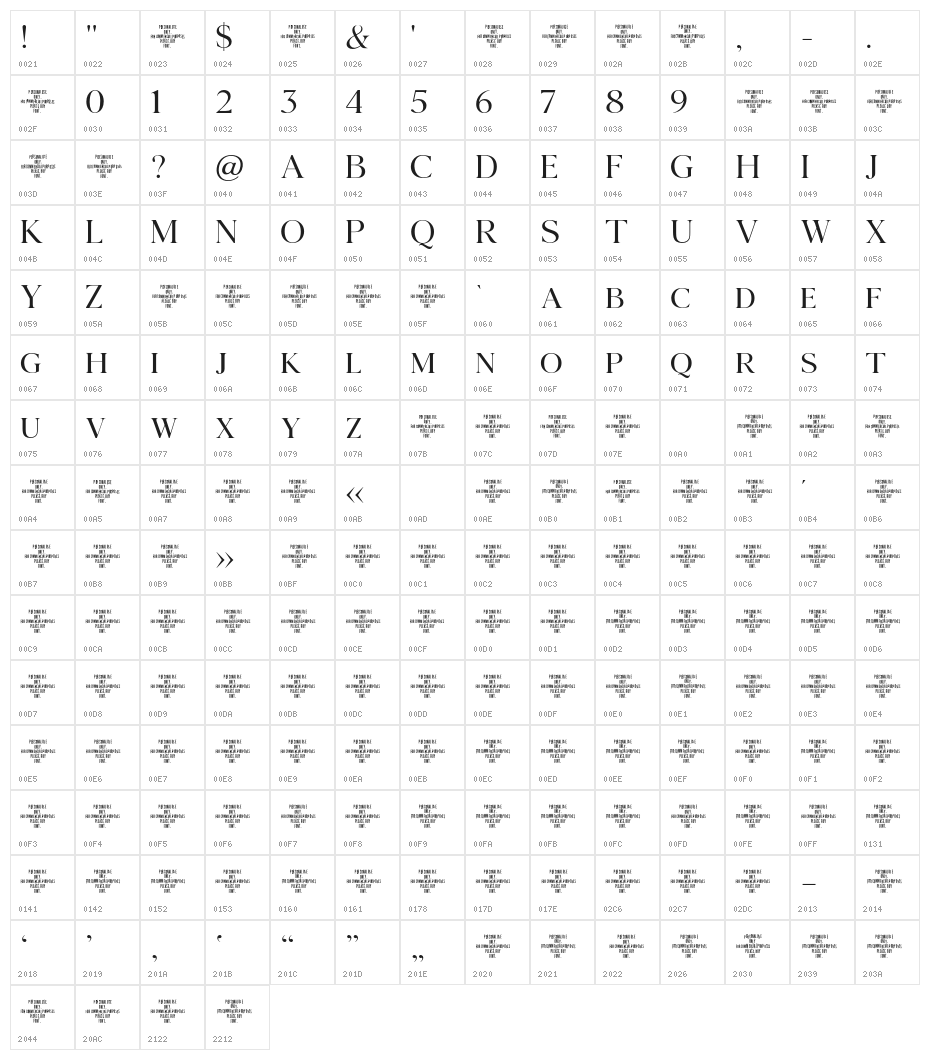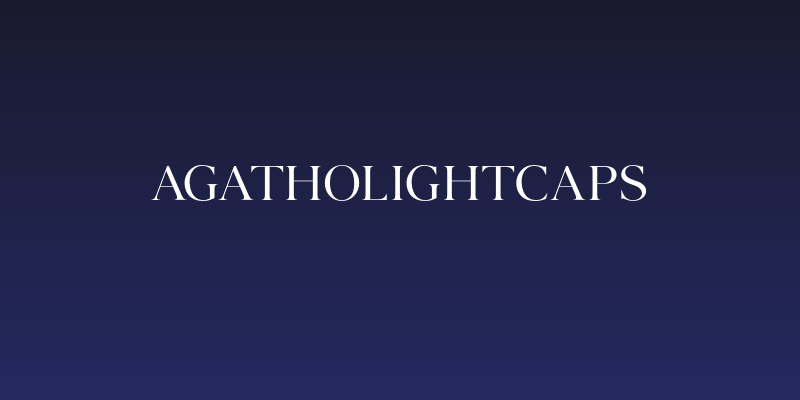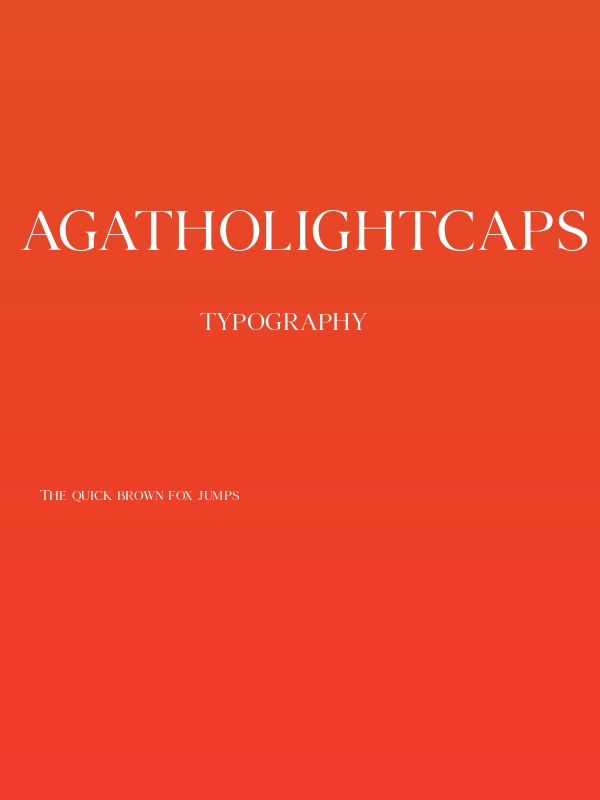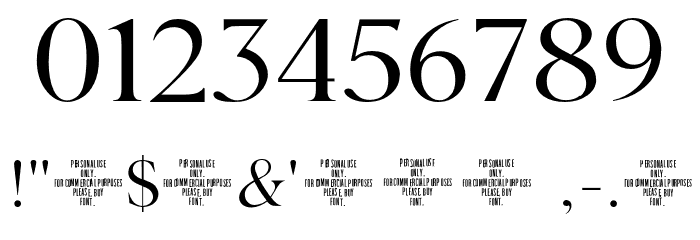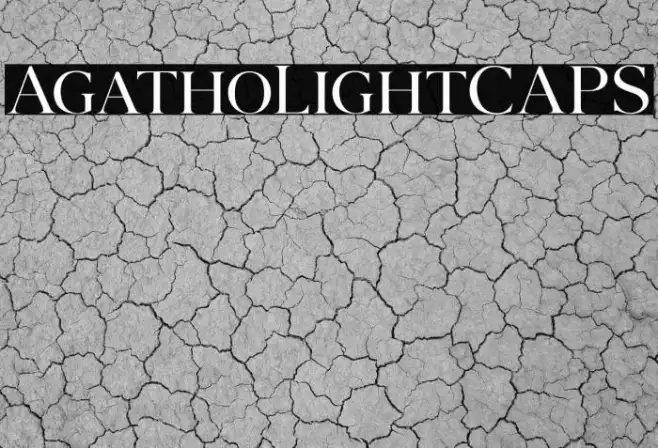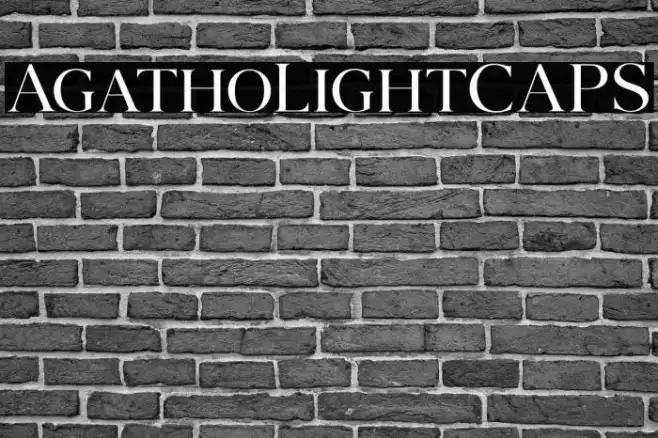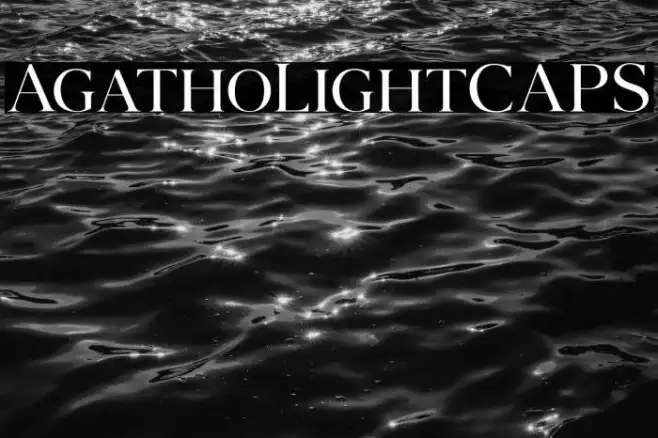
AgathoLightCAPS Font
AgathoLightCAPS Description
This font features a classic serif style with elegant and refined letterforms. The uppercase letters are prominently displayed, showcasing a traditional design with a modern twist. The numerals are clear and distinct, maintaining the font's sophisticated appearance. Special characters are included, adding versatility to the font's usage. The overall design is balanced, with a focus on readability and aesthetic appeal. The strokes are consistent, and the serifs are well-defined, contributing to the font's timeless elegance.
| Proposed Projects | Ideal for formal invitations, editorial design, branding, and classic-themed projects. |